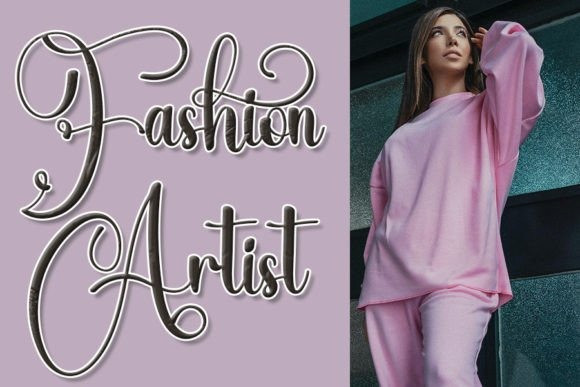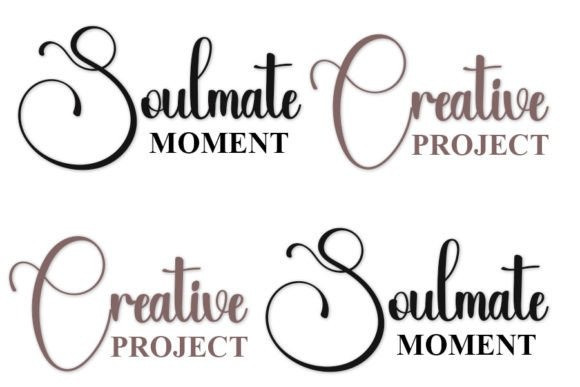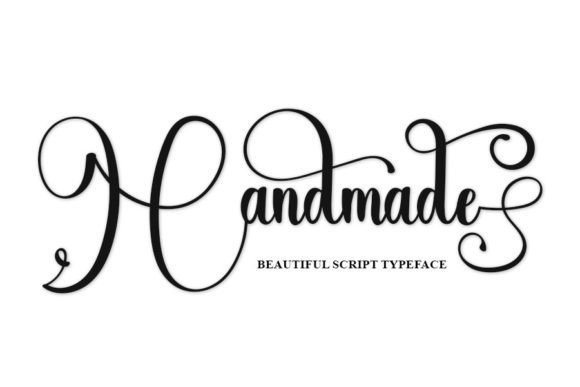
Handmade Beautiful Font
Handmade Beautiful Font is a gorgeous and elegant handwritten font. Use it for any design projects that require a charming appearance!